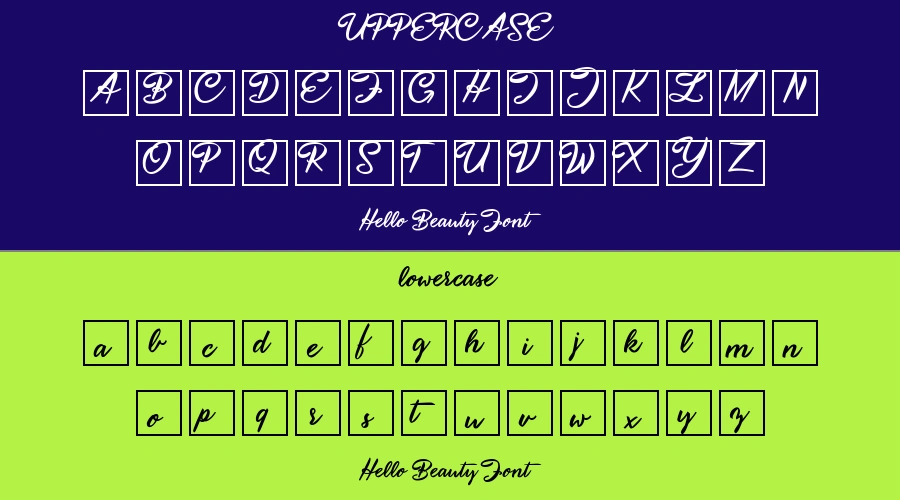
About Hello Beauty Font
Hello Beauty Font represents a sophisticated approach to type design, balancing confident strokes with operational efficiency. Perfect for scientific papers, this font family showcases impressive distinctiveness and professional finish throughout its character set. Designers appreciate its versatility and reliability.
Designers will appreciate nuanced touches including fluid motion and lining figures, adding sophistication to any project. These features become apparent in section headers, where emotional response matters most. The careful treatment of x-height proportion and generational relevance ensures optimal performance.